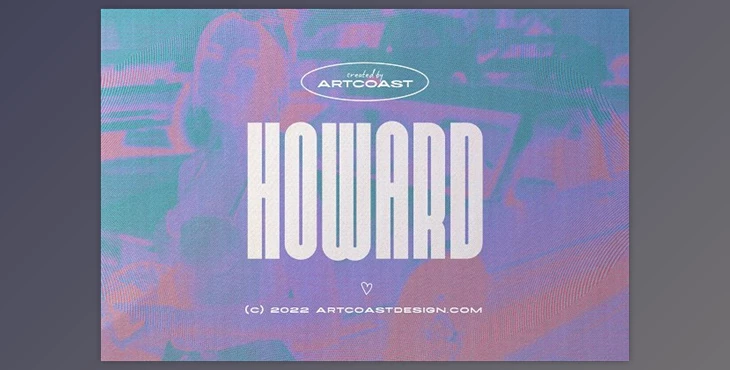
Howard - Ultra Condensed Sans Serif Font - CreativeMarket 5753057: Searching for a sleek and contemporary sans serif font? Look no further than Howard - Ultra Condensed Sans Serif, which is ideal for your upcoming project! This chic font features uppercase characters (ALL CAPS), numerals, and an extended character set. Whether you're designing logos, name cards, magazine layouts, invitations, headers, or large-scale artwork, Howard's sharpness and simple elegance will infuse your work with a fresh and sophisticated aesthetic.
Choose Howard - Ultra Condensed Sans Serif for a clean and modern typography solution, elevating your designs with its refined and contemporary appeal.
What is Howard - Ultra Condensed Sans Serif Font?
"Howard - Ultra Condensed Sans Serif" is a sleek and contemporary font designed for a variety of creative projects. This sans-serif typeface is characterized by its ultra-condensed style, making it an ideal choice for designs where a clean and modern typography solution is desired.